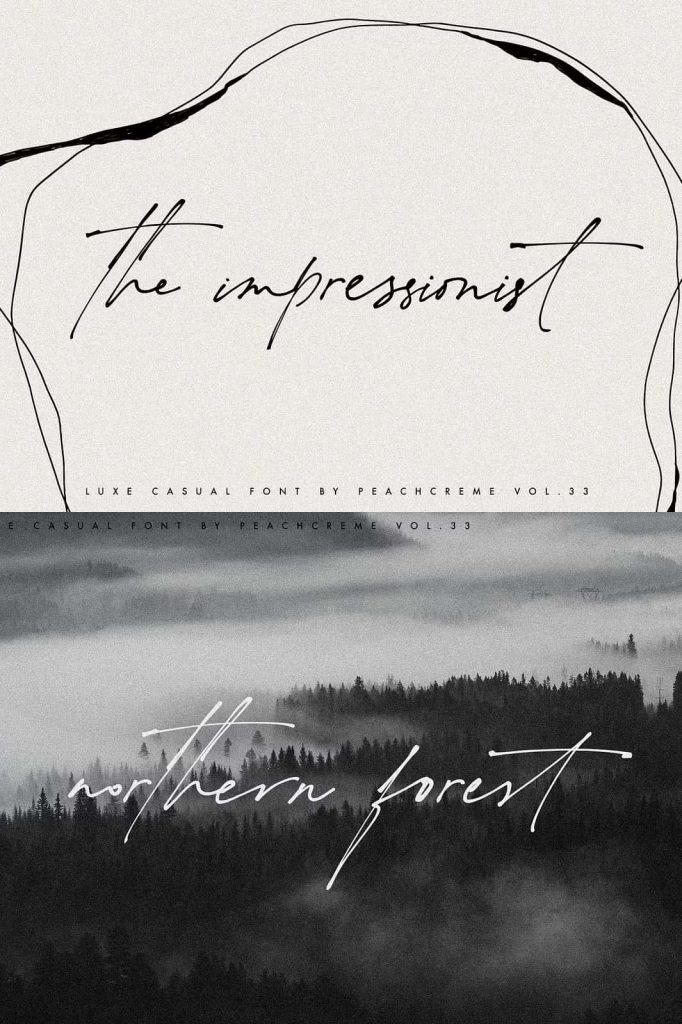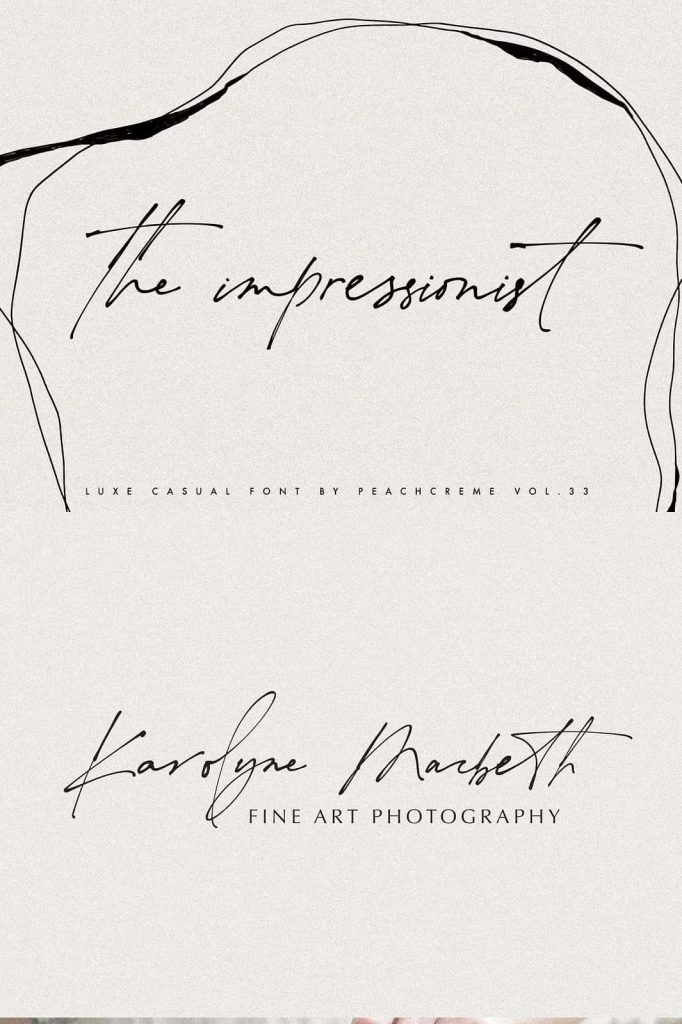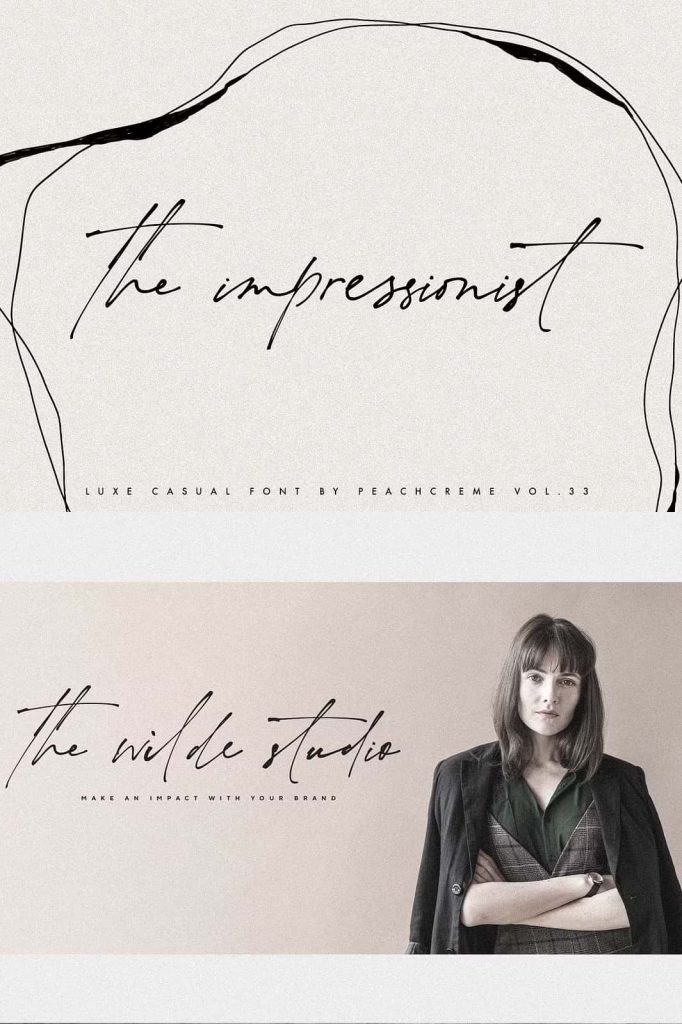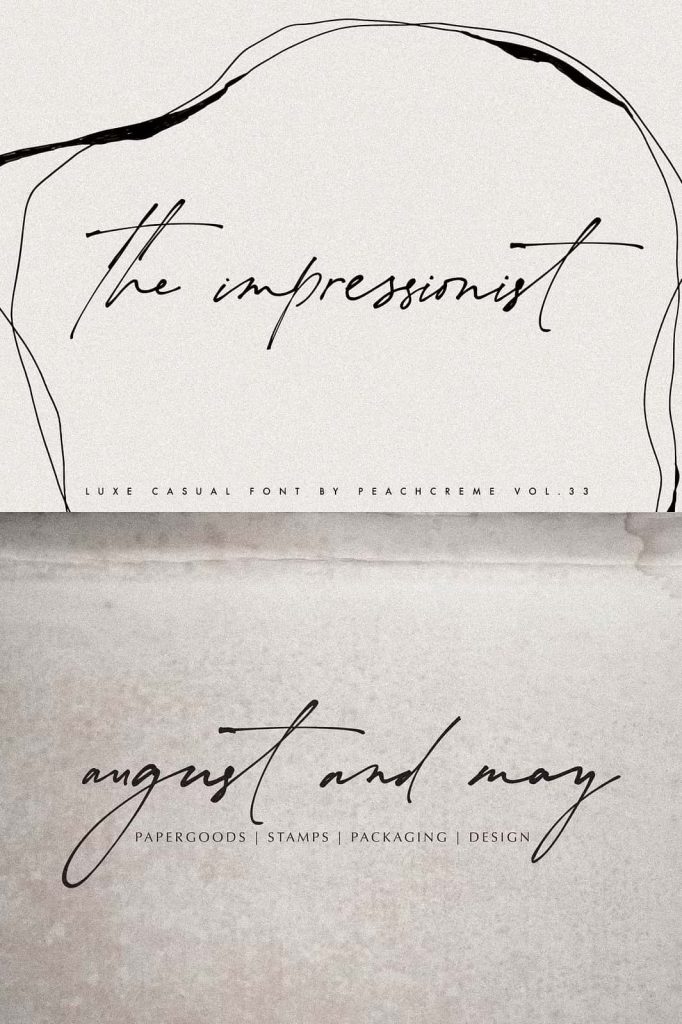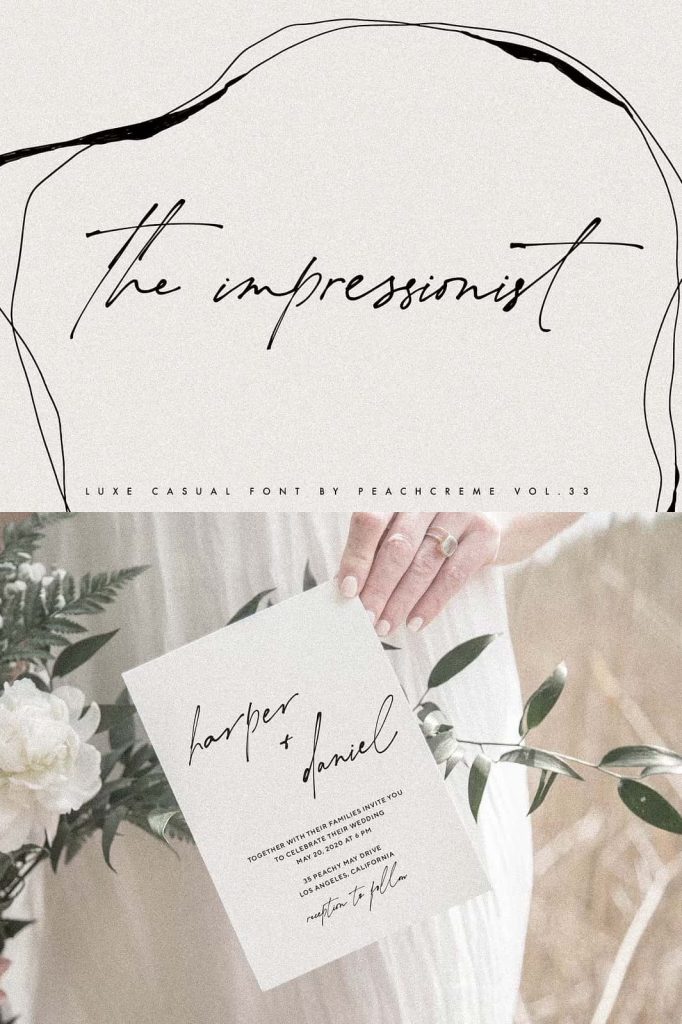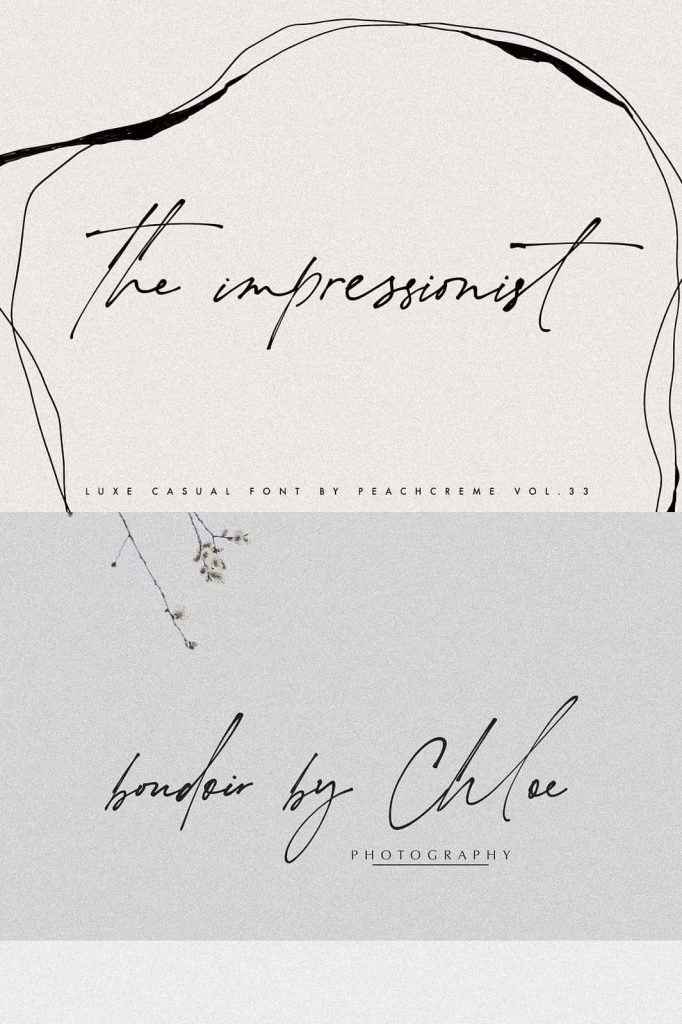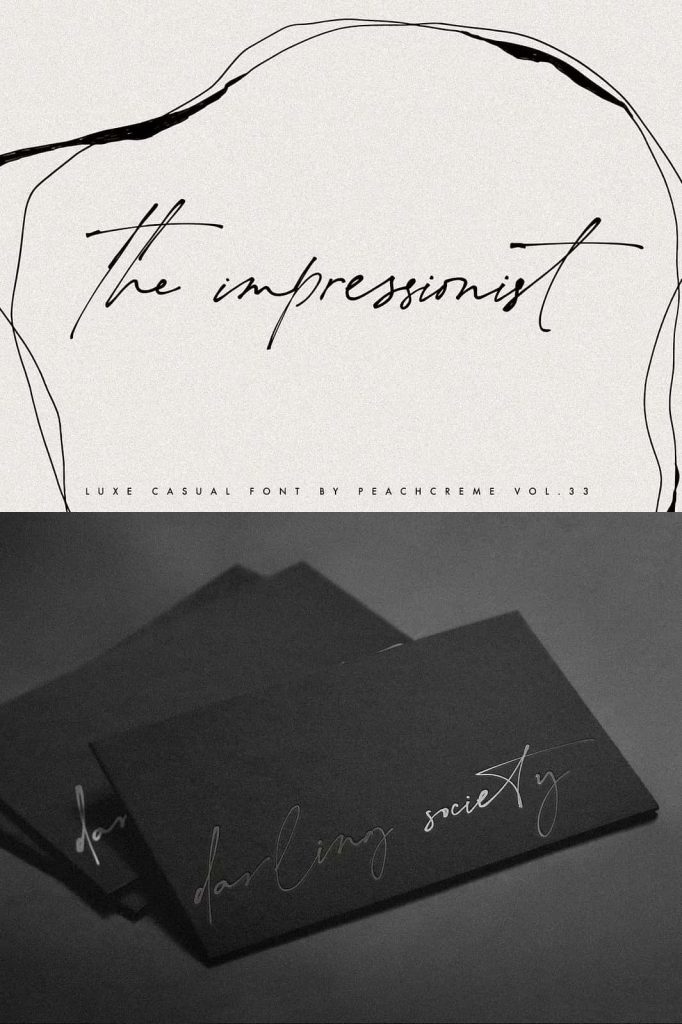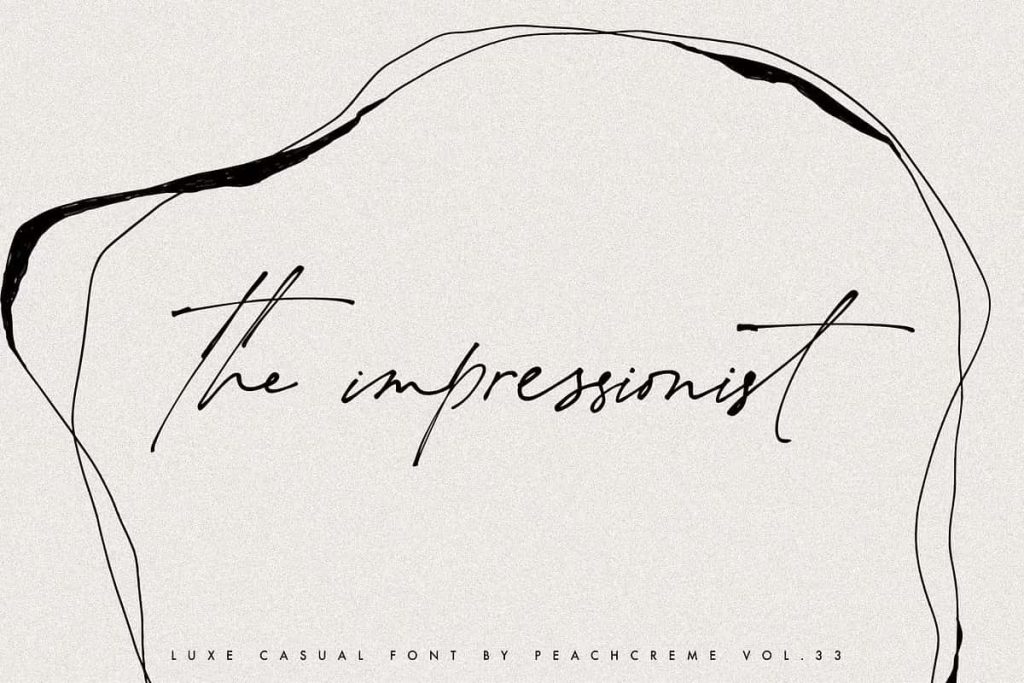
the impressionist // luxe chic font
The Impressionist Font: A Typeface Inspired by Fleeting Vision and Emotional Expression
The Impressionist Font captures the essence of fleeting vision, abstract shapes, and the emotional weight of brief moments. Designed to challenge traditional rules of legibility, this typeface emphasizes feeling over precision. Instead of delivering perfectly shaped letters, it offers forms that echo movement, mood, and artistic spontaneity. The Impressionist Font invites designers to explore a new typographic landscape where emotional impact becomes more important than textbook clarity. In many creative fields, this approach brings powerful storytelling depth, transforming simple text into evocative visual art.
A Typeface That Celebrates Imperfection and Emotion
The Impressionist Font rejects the idea that typography must always be perfectly readable. Instead, it embraces the imperfect forms that resemble fleeting thoughts or hurried sketches. Some letters appear unfinished or abstract, while others stretch or fade in unexpected ways. These unique characteristics create a design atmosphere filled with emotion, texture, and artistic intention. Just as impressionist painters captured light, movement, and atmosphere rather than precise detail, this typeface captures the emotional essence of written language.
The Power of Visual Emotion in Typography
In many design situations, emotion carries more importance than technical accuracy. Creating emotional resonance helps your audience connect with the message on a deeper level. The Impressionist Font uses its expressive forms to stimulate imagination and curiosity. Even when certain letters appear less conventional, the brain instinctively recognizes their shapes. Humans have an incredible ability to decode meaning from incomplete or abstract visuals. This natural cognitive process allows designers to use the typeface freely without fear of losing the audience’s engagement.
Inspired by Fleeting Vision and Artistic Abstraction
The inspiration behind The Impressionist Font lies in the beauty of transitory moments—those brief scenes that pass before the eye can fully register them. These glimpses often leave emotional impressions rather than precise visual memories. The typeface reflects this ephemeral quality through its shifting lines, blurred strokes, and expressive distortions. Each glyph feels like a moment captured in motion, hinting at a story or emotion that lingers just beyond the surface.
A Typeface for Creative Risk-Takers
Designers who enjoy pushing boundaries and experimenting with artistic concepts will find The Impressionist Font especially appealing. It works well for projects that aim to communicate mood, personality, or artistic depth. This font becomes a valuable tool when you want to evoke mystery, nostalgia, introspection, or emotional tension. It encourages you to break away from predictable design patterns and trust the expressive power of abstraction.
Perfect for Artistic, Conceptual, and Experimental Projects
Because of its expressive nature, The Impressionist Font excels in art-related and conceptual design work. It adds visual character and emotional depth to album covers, movie posters, editorial layouts, branding for artistic studios, creative exhibitions, and contemporary web design. Its unconventional style makes it ideal for poetry books, personal essays, and any project that explores human emotion or artistic interpretation. When used for display text, titles, or short poetic messages, the typeface transforms simple words into meaningful and atmospheric visuals.
Embrace a New Approach to Typographic Communication
Typography traditionally focuses on readability and consistency, but The Impressionist Font challenges that norm by shifting the goal toward emotional communication. It encourages designers to explore mood, shape, and movement as core elements of visual storytelling. This shift opens new creative pathways and invites audiences to experience typography in a more intuitive way. By using abstraction rather than strict structure, the font unlocks fresh possibilities for design expression.
The Impressionist Font stands as a celebration of fleeting vision, abstract emotion, and artistic experimentation. By embracing imperfection and expressive shape, it invites designers to prioritize feeling over rigid legibility. The brain naturally interprets these forms, allowing the typography to communicate both meaning and emotion. Whether you are creating conceptual artwork, evocative editorial pieces, experimental branding, or expressive displays, The Impressionist Font empowers you to design with depth, intention, and artistic freedom.